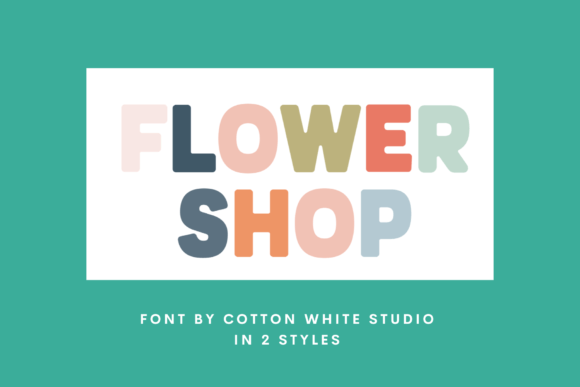
Flower Shop Font: A Perfect Blend of Modern and Classic Elements
When it comes to choosing the right font for your design project, it can be overwhelming with the numerous options available. However, if you’re looking for a font that commands attention while maintaining an elegant sophistication, look no further than the Flower Shop font. This font is a perfect blend of modern and classic elements, making it ideal for any design project that demands a contemporary yet timeless aesthetic.
What Makes Flower Shop Font Stand Out?
Flower Shop font is a unique and stylish font that boasts bold and clean lines. Its modern design makes it perfect for headlines, titles, and any other design element that requires a strong visual impact. The font’s clean lines ensure that it remains legible even at large sizes, making it perfect for billboards, posters, and other large-format designs.
One of the standout features of Flower Shop font is its elegant sophistication. The font’s classic elements ensure that it remains timeless and doesn’t look outdated, even after years of use. This makes it an excellent choice for brands that want to establish a strong and lasting visual identity.
Unique Curves and Angles
Flower Shop font’s unique curves and angles add a touch of flair and character to any design project. The font’s curves are smooth and flowing, while the angles are sharp and precise. This combination creates a visually appealing contrast that makes the font stand out from more traditional fonts.
The unique curves and angles of Flower Shop font also make it perfect for designs that require a touch of elegance and sophistication. For example, it’s ideal for wedding invitations, luxury brand logos, and high-end product packaging.
Versatility of Flower Shop Font
One of the best things about Flower Shop font is its versatility. The font can be used for a wide range of design projects, from print materials like brochures and posters to digital designs like website headers and social media graphics.
Flower Shop font is also highly legible, making it perfect for body text and other written content. Its clean lines and classic design ensure that it remains easy to read, even at small sizes.
Why Choose Flower Shop Font?
There are many reasons why you should choose Flower Shop font for your next design project. Here are just a few:
- Unique design: Flower Shop font boasts a unique design that will make your project stand out from the crowd.
- Elegant sophistication: The font’s classic elements ensure that it remains timeless and elegant.
- Versatility: Flower Shop font can be used for a wide range of design projects, from print materials to digital designs.
- Legibility: The font is highly legible, making it perfect for body text and other written content.
- Use it for headlines: Flower Shop font is perfect for headlines and titles. Its bold and clean lines make it highly visible, even at large sizes.
- Pair it with other fonts: Flower Shop font pairs well with other fonts, especially those with a more traditional design. This creates a visually appealing contrast that adds depth and interest to your design.
- Experiment with colors: Flower Shop font looks great in a variety of colors. Experiment with different colors to find the one that works best for your design.
In conclusion, Flower Shop font is a perfect blend of modern and classic elements. Its bold and clean lines make it highly visible, while its elegant sophistication ensures that it remains timeless. The font’s unique curves and angles add a touch of flair and character, making it ideal for any design project that demands a contemporary yet timeless aesthetic.
Whether you’re working on a print project or a digital design, Flower Shop font is an excellent choice. Its versatility, legibility, and unique design make it perfect for a wide range of applications. So why not give it a try and see how it can elevate your design?